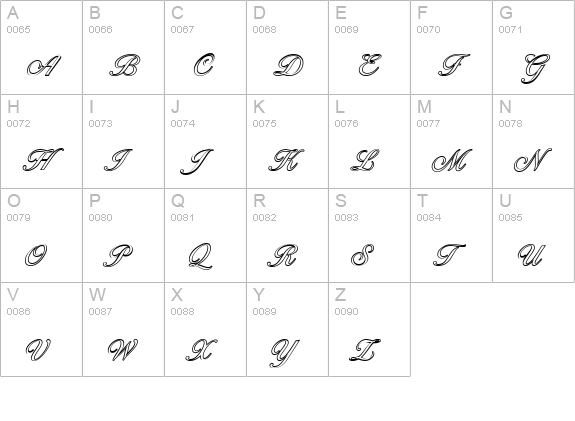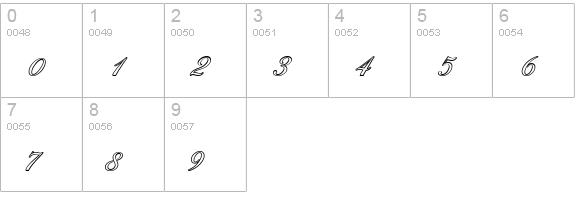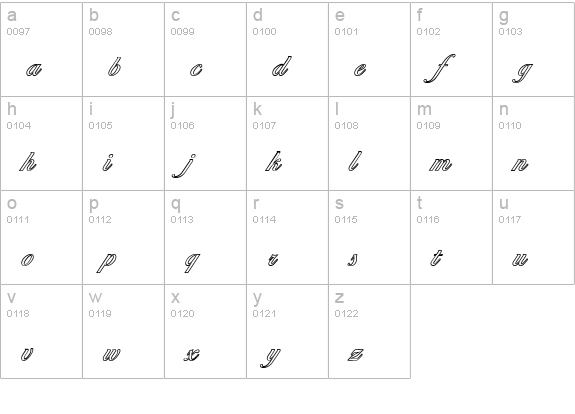
BallantinesOutline-Light-Regular is a refined, elegant variant in the BallantinesOutline typeface family \xE2\x80\x94 well suited to elegant body text, refined sub-headings, and luxury branding.
BallantinesOutline-Light-Regular is a modern and elegant font that exudes sophistication and style. With its clean lines and delicate outlines, this font is perfect for creating a refined and polished look in your designs. Whether you are working on a branding project, a website design, or any other creative endeavor, BallantinesOutline-Light-Regular is sure to make a statement. The light weight of this font adds a touch of subtlety and grace, making it ideal for conveying a sense of sophistication and sophistication. Its minimalist design allows it to be versatile and suitable for a wide range of applications. Whether you are designing a logo, a poster, a brochure, or any other graphic design project, BallantinesOutline-Light-Regular will add a touch of elegance and refinement to your work. Best of all, BallantinesOutline-Light-Regular is free to download at FontsMarket.com. This means that you can easily access this beautiful font and use it in your projects without any cost. So why wait? Download BallantinesOutline-Light-Regular today and elevate your designs with its timeless beauty and sophistication.